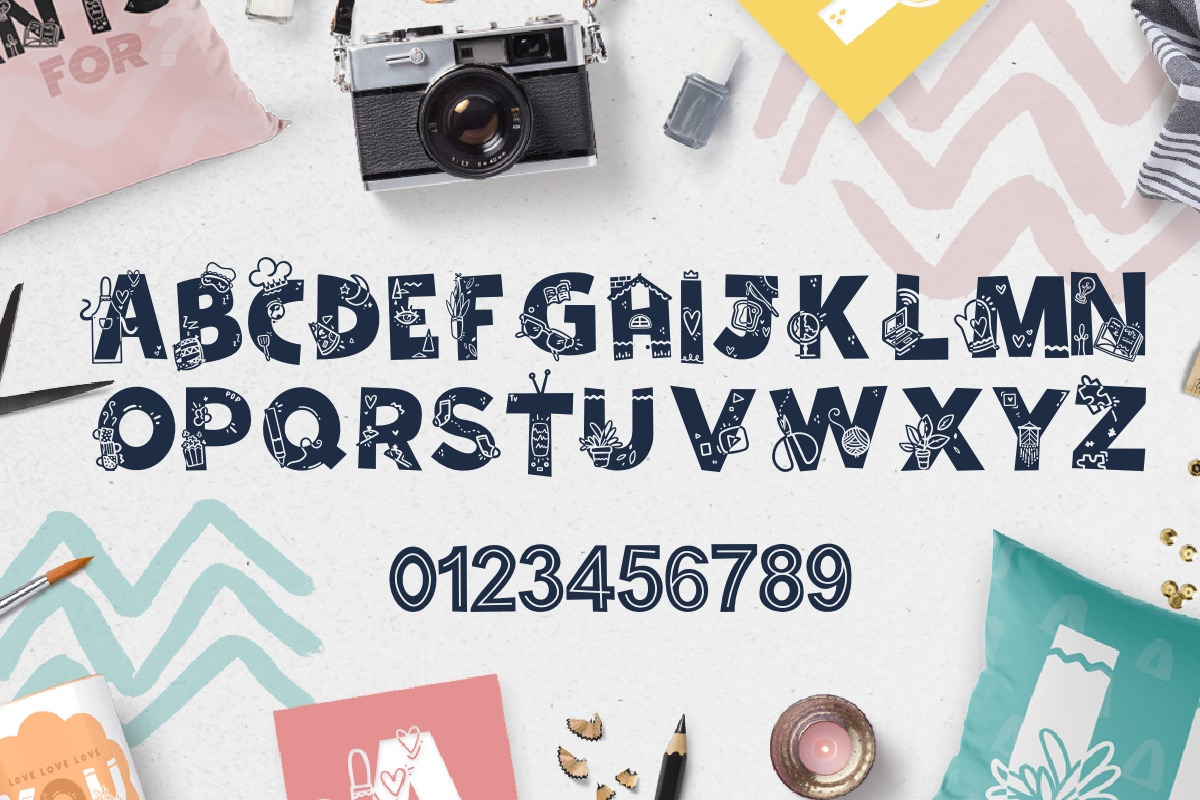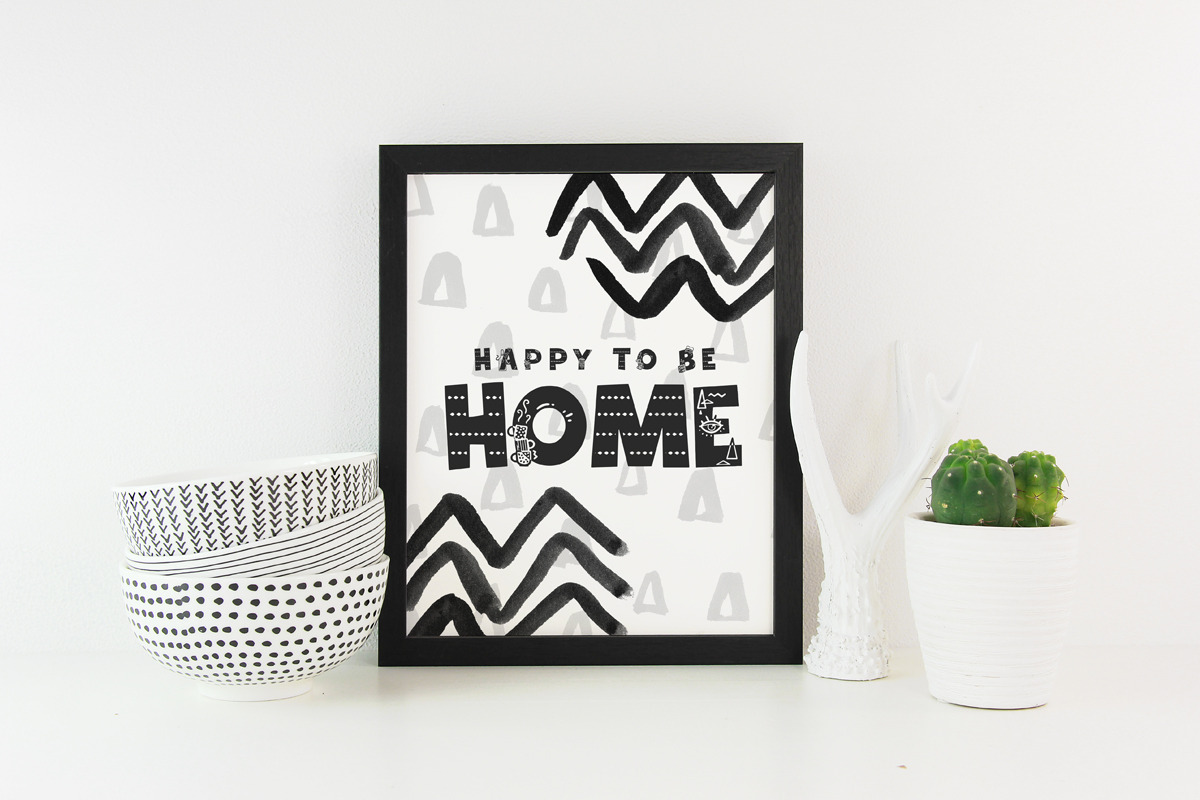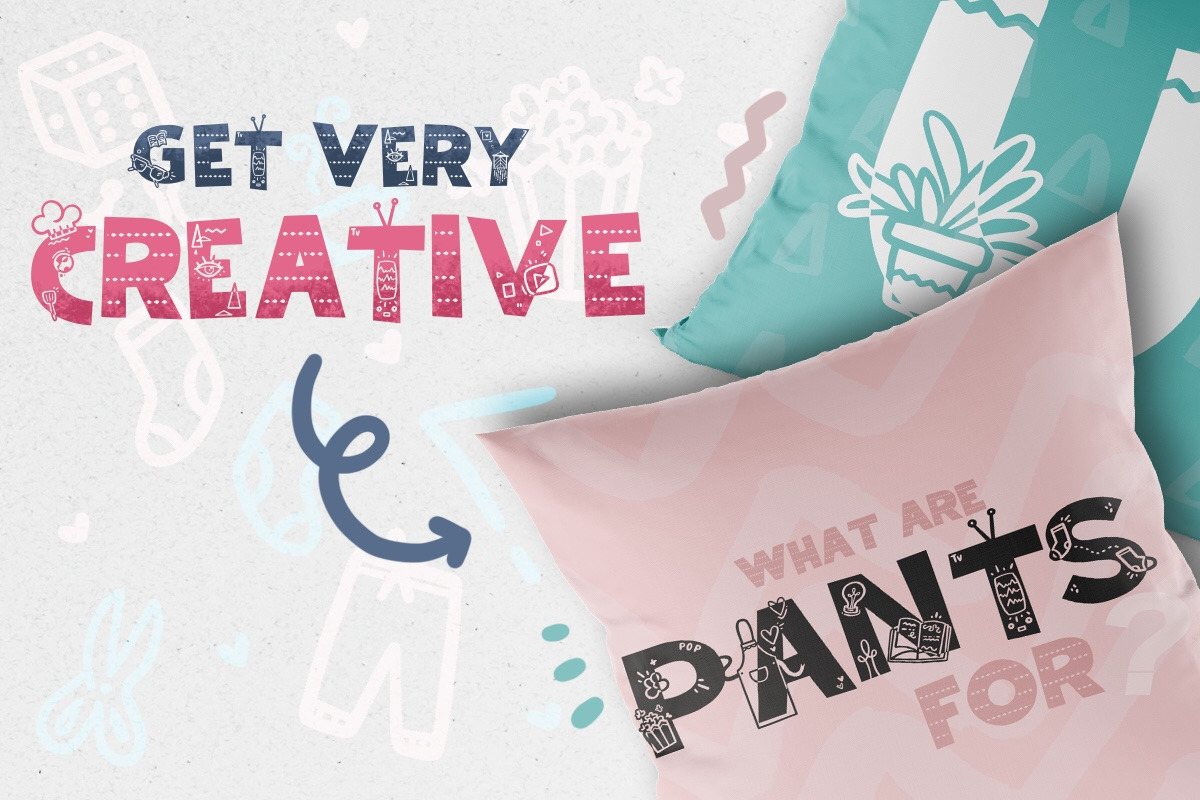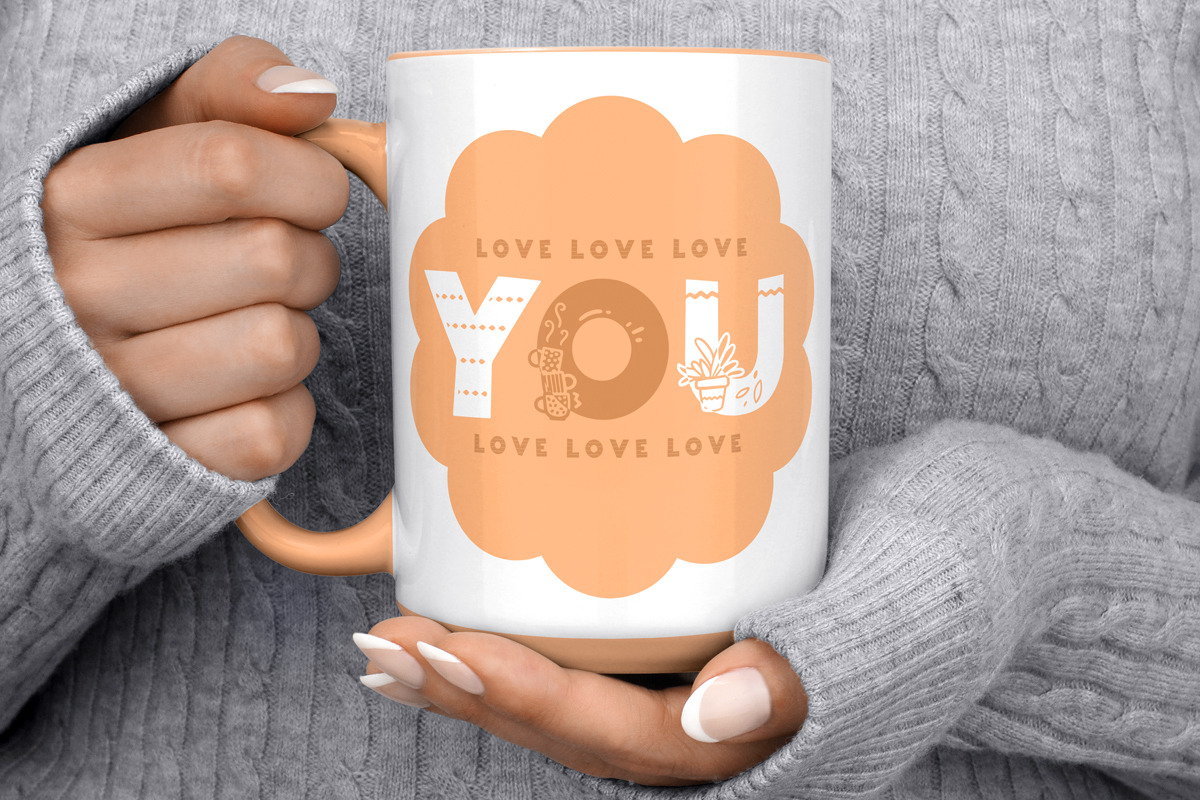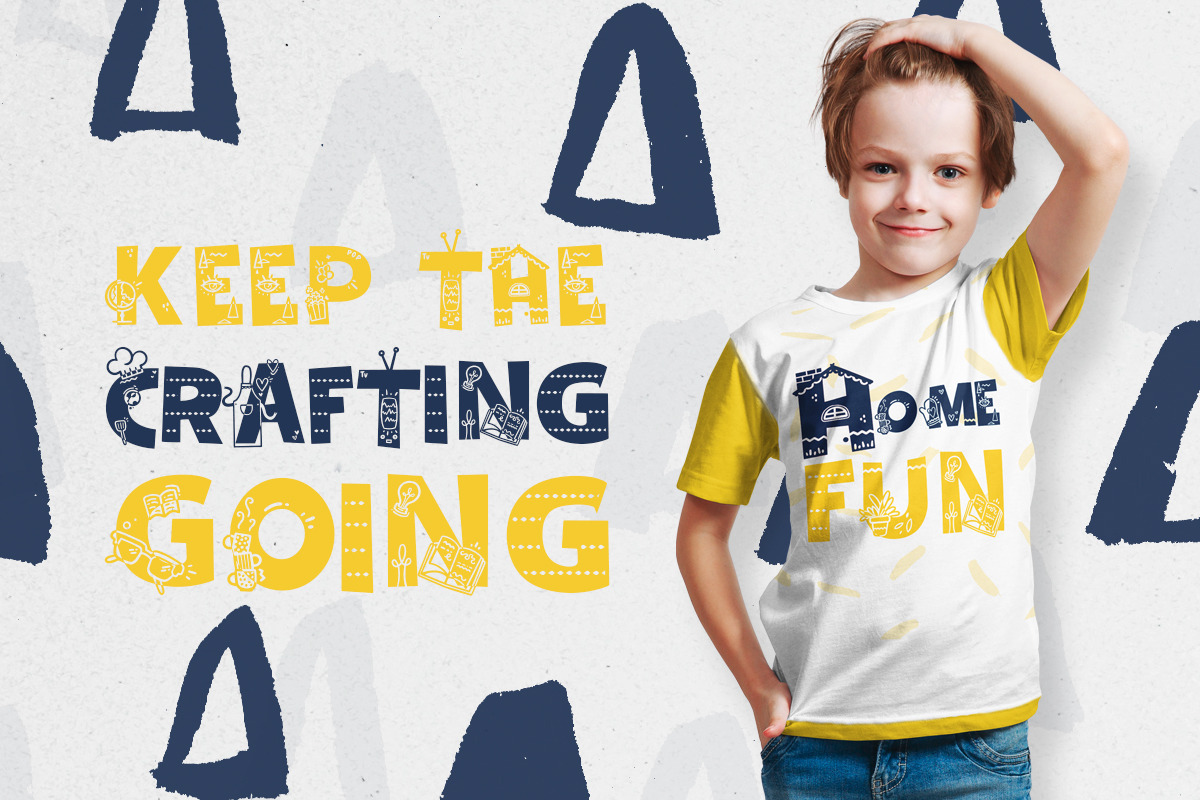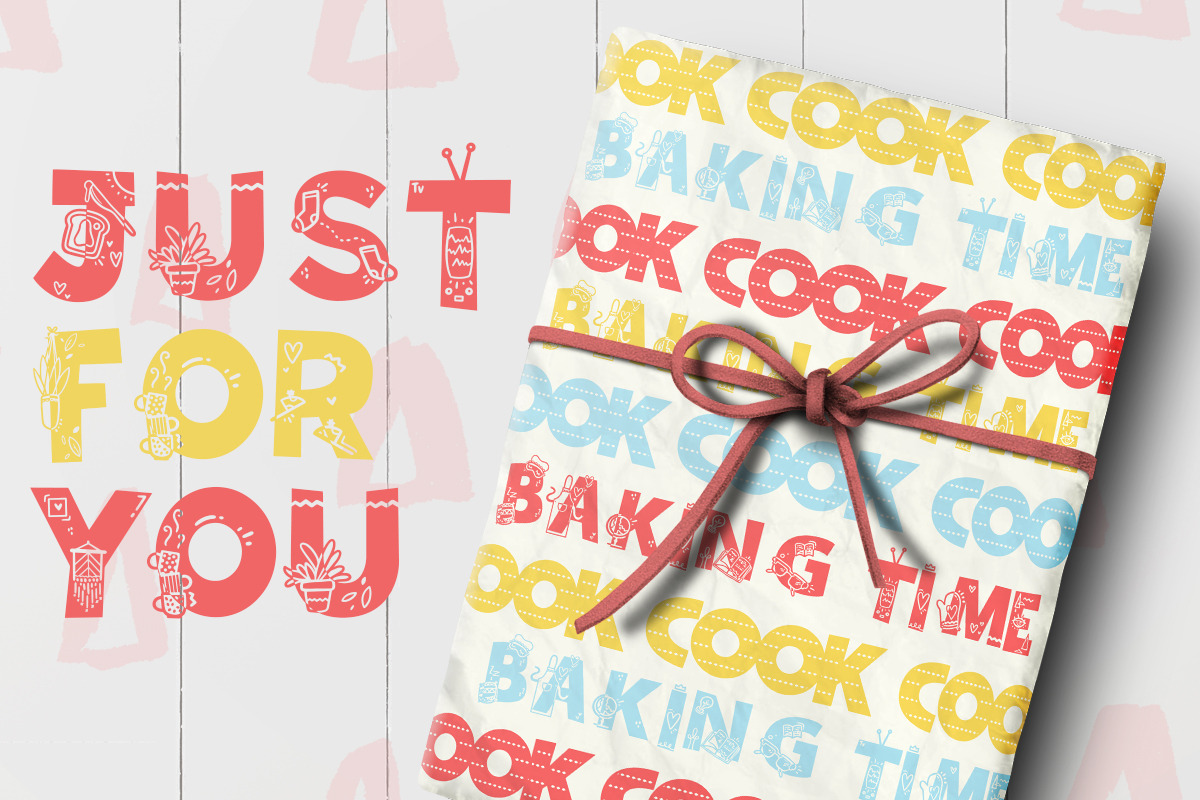
Stay Home - Doodle Font
The whole world is going through a very difficult situation that changed our lifestyle completely, but hey! I’m here to remember you guys that we can use our time at home wisely by taking care of ourself and the people we live with, taking that online course you didn’t have time before, reading that book you are curious about... Believe me, there’s tons of things to do at home! Let’s be thankful to be safe at home and pray for those who are facing the virus.
Use the uppercase letters (without doodles)